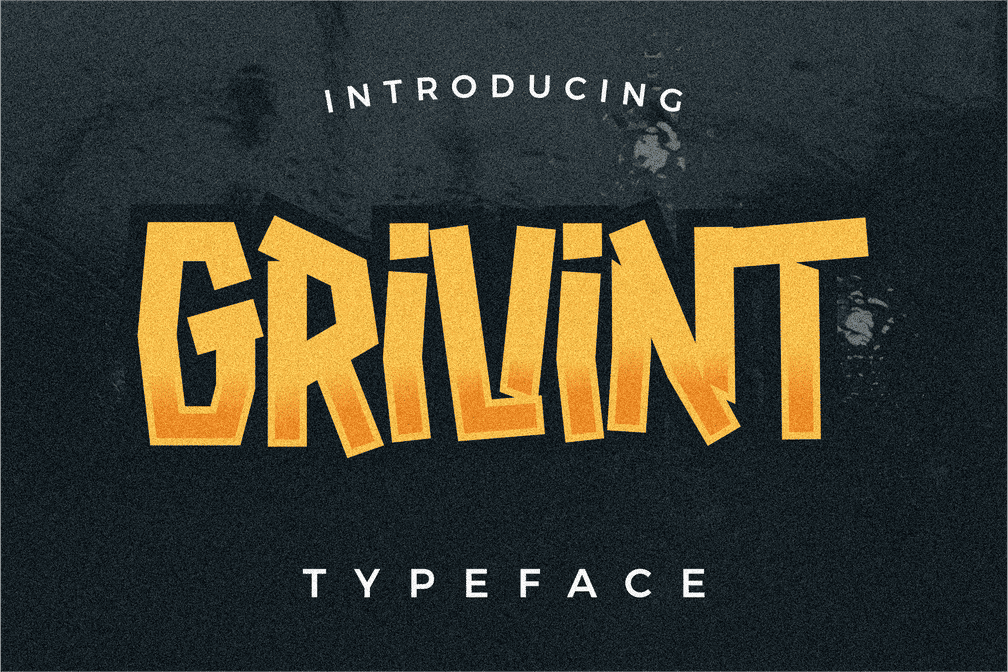
Grivint Horror Font
Inspired by horror things, Grivint is a masculine font suitable for designs related to halloween, music, bands, apparel, horror poster, clothing lines or others, can be applied as posters, postcards, logos etc.